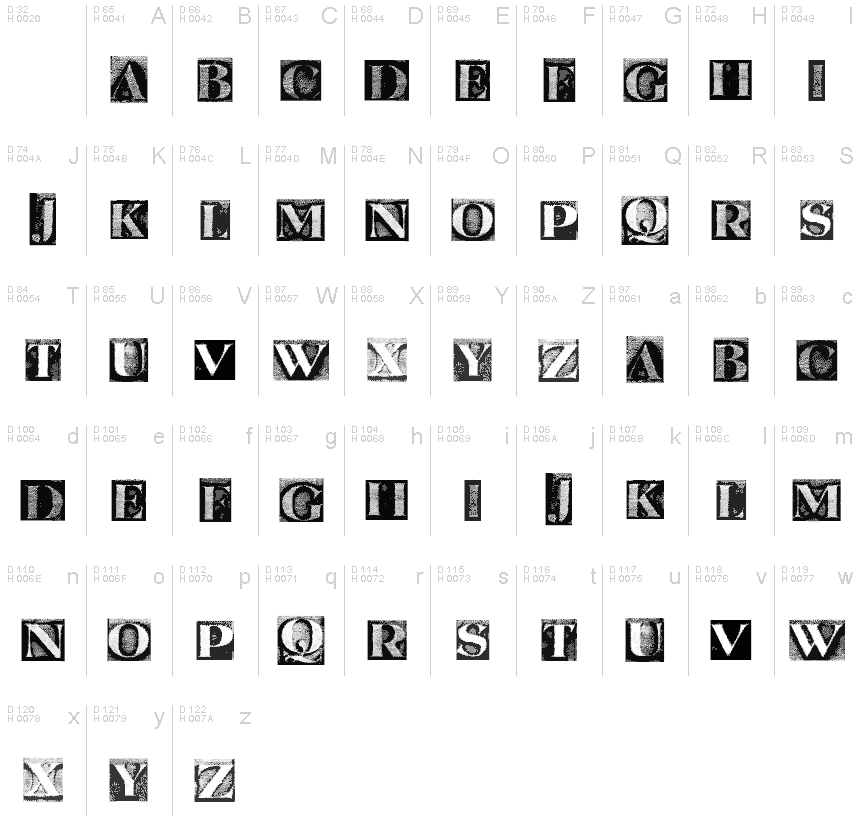
MetalBlockSerif
The Metal Block Serif font, designed by Xerographer Fonts - Max Infeld, commands attention with its boldly distorted and impactful aesthetic. This display-style typeface exudes a raw, industrial vibe, perfectly capturing the essence of a rugged, metallic aesthetic. The uneven, textured letterforms and striking serifs create a captivating, visually striking impression, making this font an ideal choice for projects seeking a bold, attention-grabbing visual statement.
This font's versatility shines across a variety of design applications, from eye-catching headlines and logos to signage, packaging, and editorial layouts. Its powerful presence lends itself well to branding and marketing materials for industries like manufacturing, construction, or automotive, where the font's bold and industrial-inspired character can effectively convey the desired brand identity and messaging.